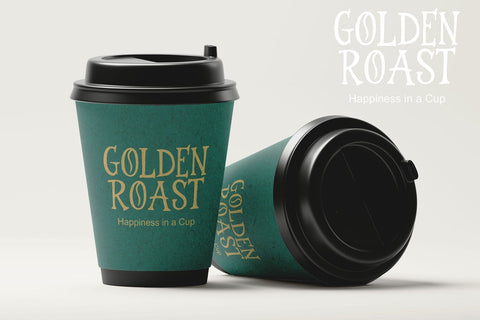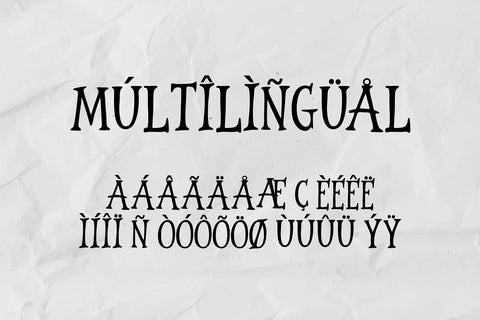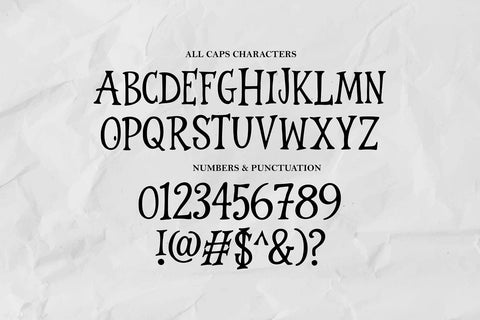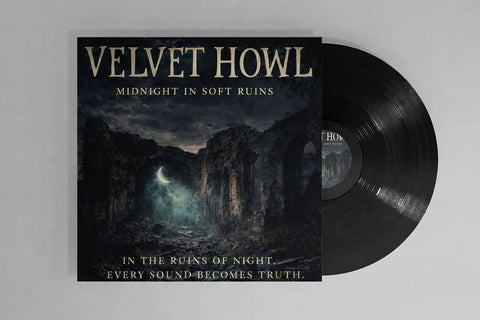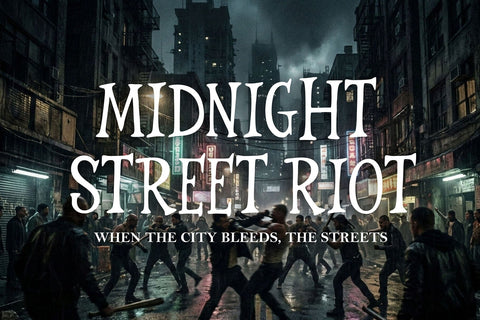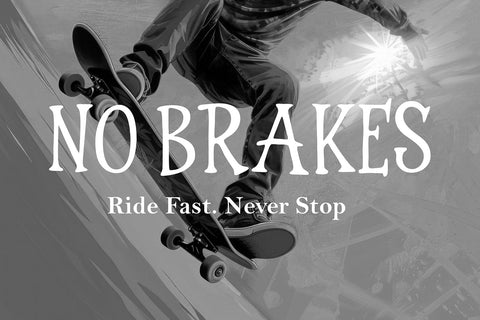
Jager Moon - Serif and Classical Display typeface
Jager Moon is a timeless serif display font inspired by classic typography and traditional lettering styles. Designed with balanced proportions and elegant serif details, this font brings a refined and professional look to a wide variety of design projects.
Featuring uppercase and lowercase letters, numbers, punctuation, and multilingual support, Jager Moon is suitable for branding, editorial layouts, logos, packaging, posters, and book covers. Its single-style structure keeps the font clean and easy to use while maintaining a strong visual identity.
The classic serif character gives Jager Moon a warm and authentic feel, making it ideal for designs that require elegance, tradition, and clarity. Whether used for bold headlines or refined typographic compositions, this font delivers consistent and timeless results.